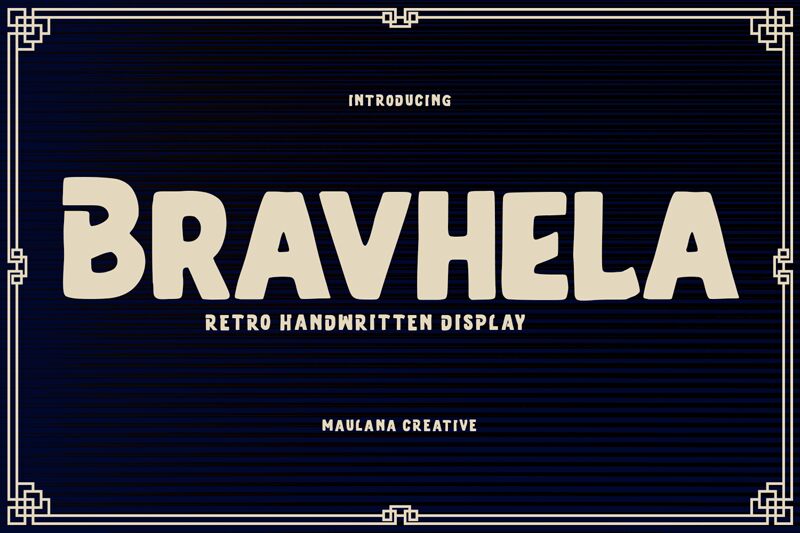
Bravhela Free Font Regular
Bravhela, designed by Maulana Creative, is a captivating display font that exudes a retro charm. With its extra-bold weight, it commands attention and adds a touch of nostalgia to any project.
Ideal for vintage-themed designs like posters, album covers, and branding materials, Bravhela infuses your creations with an irresistible old-school vibe. Its bold lines and distinct character make it perfect for headlines and titles that need to stand out.
Whether you're reviving the past or adding a vintage twist to contemporary designs, Bravhela is your go-to font for a dose of retro appeal.